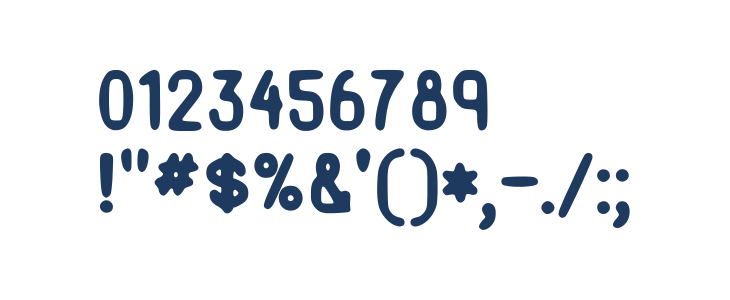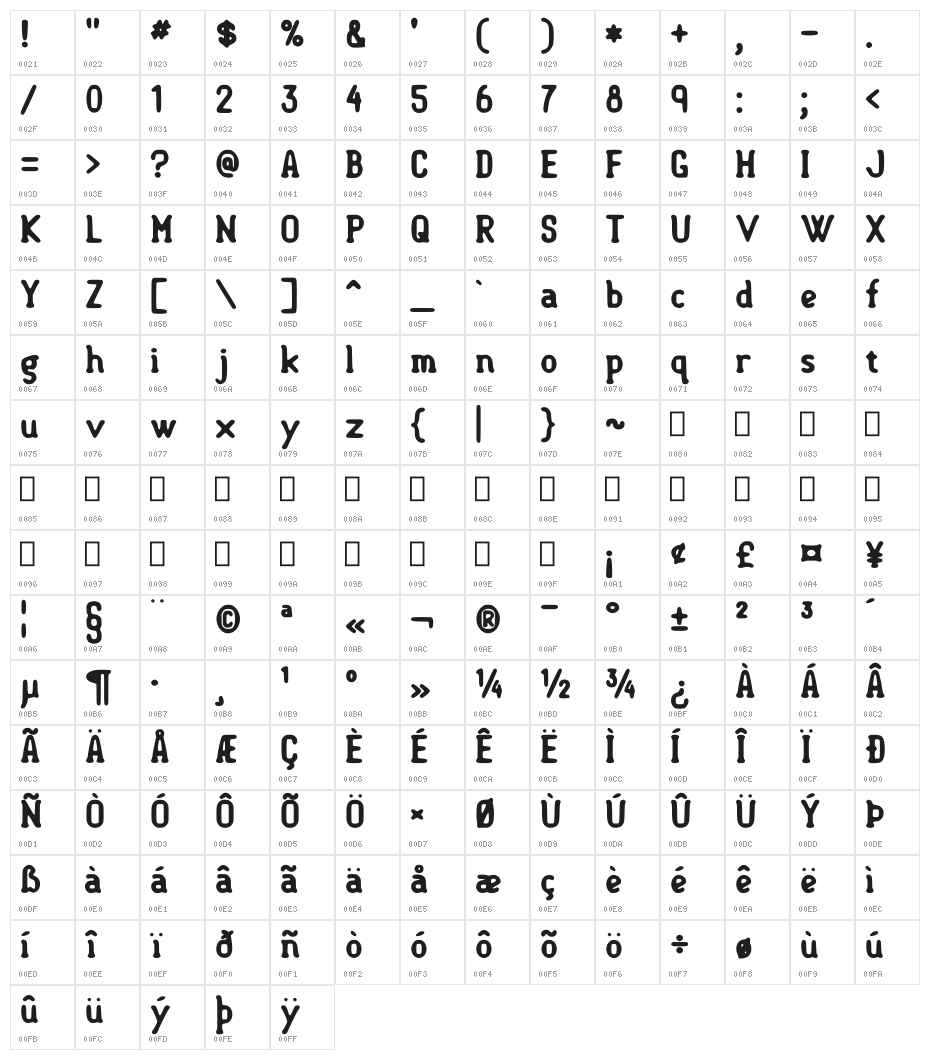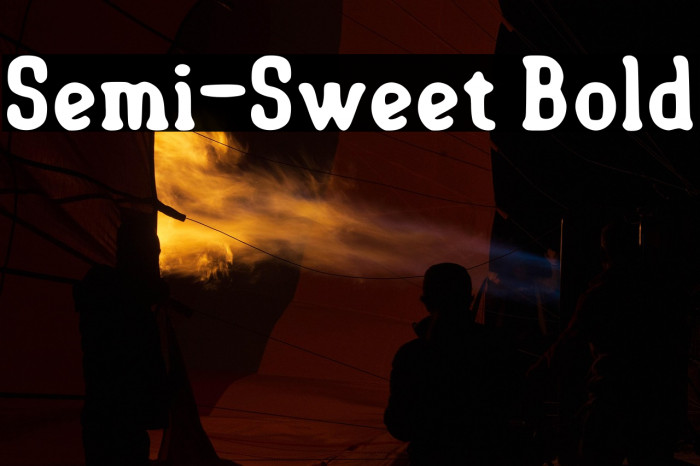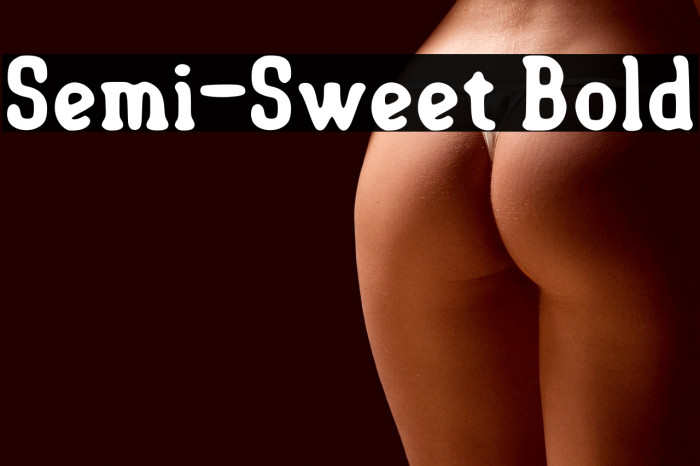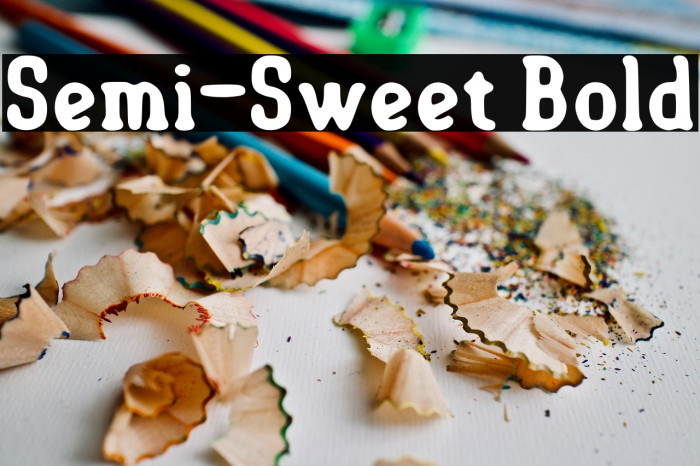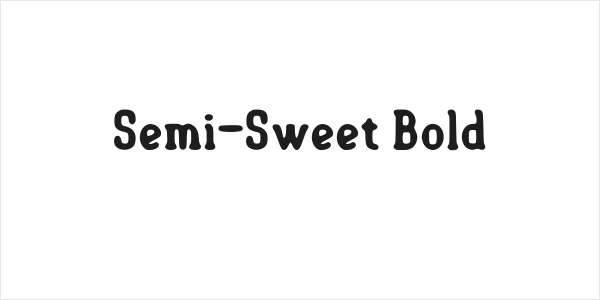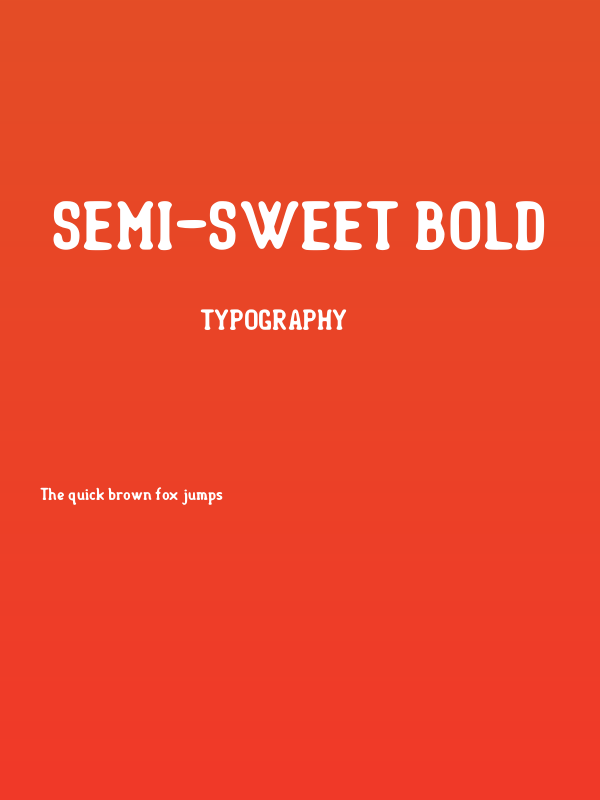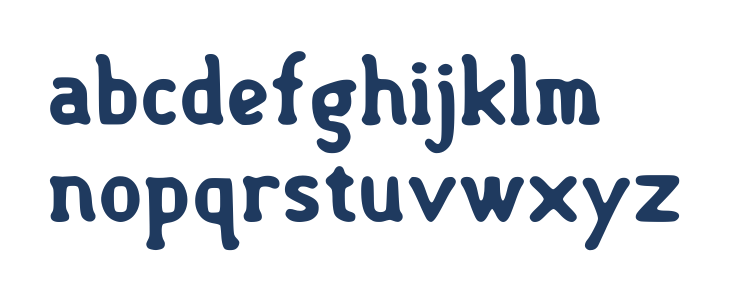
Semi-Sweet Bold Font
Semi-Sweet Bold Description
This font features a playful and bold style with rounded edges and a slightly irregular form, giving it a hand-drawn appearance. The characters are thick and substantial, providing a strong visual impact. The uppercase and lowercase letters maintain a consistent weight, while the numbers and special characters are designed to complement the overall aesthetic. The font's whimsical nature makes it suitable for creative and informal applications, adding a touch of fun and personality to any design.
| Proposed Projects | Ideal for children's books, playful branding, posters, and creative invitations. |